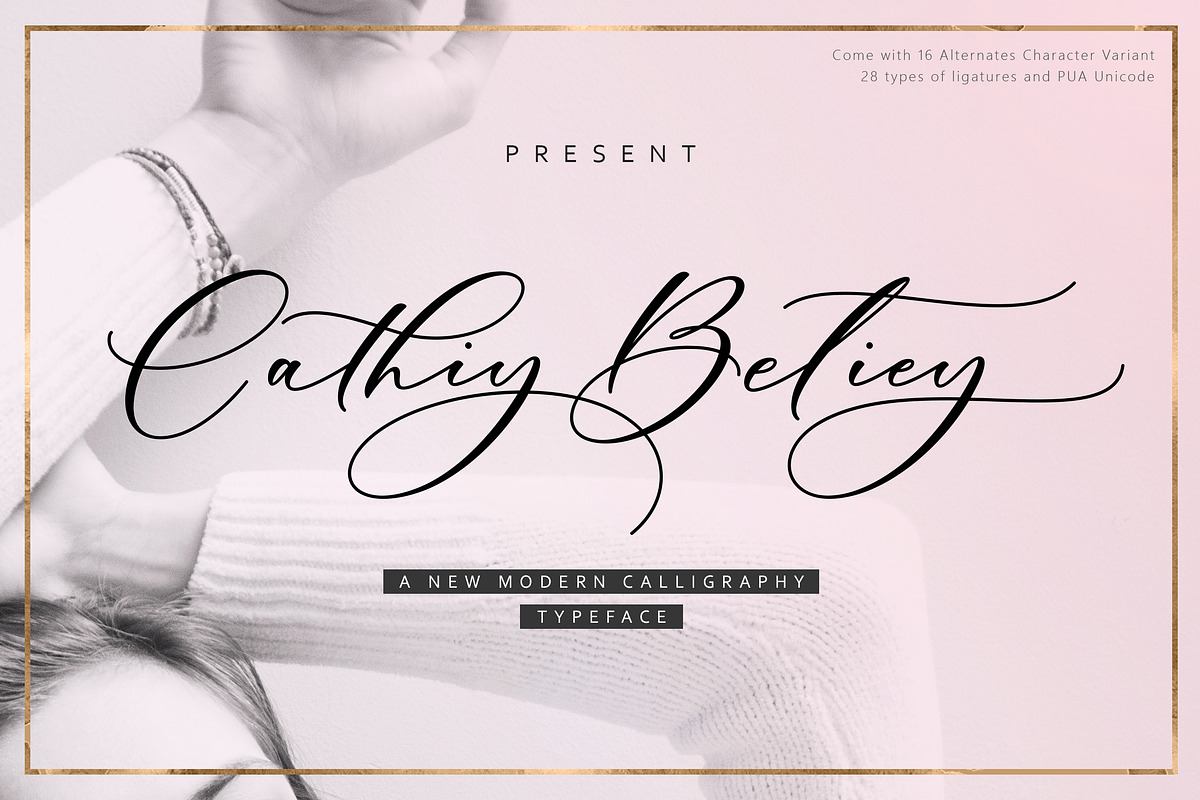
Cathiy Betiey Font Free Download is a stylish and sophisticated handwritten script typeface. Featuring smooth curves, elegant strokes, and a refined feel, this font is perfect for projects that require a personal, creative, and artistic touch. Whether you're designing for invitations, branding, logos, or social media graphics, Cathiy Betiey adds a charming, signature-style flair to any design.
Its fluid and flowing design makes it ideal for high-end branding, wedding materials, or any design that demands elegance and personality. With its modern yet timeless style, Cathiy Betiey enhances your typography with grace and refinement.
Add elegance and style to your designs with the graceful beauty of Cathiy Betiey!